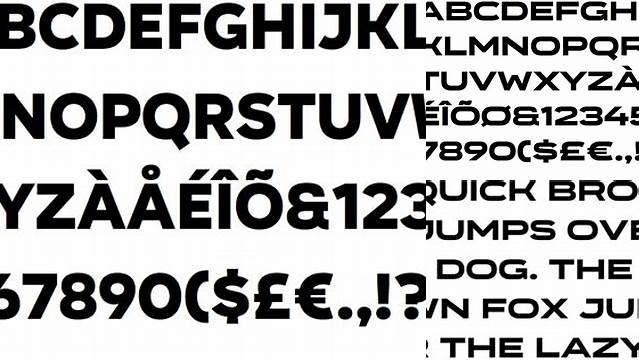
Organetto Ultra Bold Font: A Deep Dive
Fontspring Demo: Organetto Ultra Bold – A Deep Dive
Hey guys, let's talk about the Fontspring demo for Organetto Ultra Bold. This is one of those fonts that just jumps out at you, right? It's got that in-your-face boldness that demands attention. In this article, we're going to dive deep into what makes this font tick, why you might want to use it, and where it shines the brightest. We'll explore its personality, its strengths, and even a few potential drawbacks. Get ready to get acquainted with a typeface that's designed to make a statement. So, if you're ready to boldly go where few fonts have gone before, let's get started!
Organetto Ultra Bold isn't shy; it's the life of the party, the headline hogger. Its substantial weight and commanding presence make it a top choice for anything that needs to shout, not whisper. Think about it: posters, headlines, logos – places where you need instant recognition and impact. We're talking about a font that can turn heads from across the room. It has a certain je ne sais quoi that makes it unique. It's the font equivalent of wearing a bright red suit to a business meeting. While it might not be everyone's cup of tea, it's definitely memorable.
When you're thinking about using Organetto Ultra Bold, you're also thinking about the statement you want to make. Are you aiming for something modern, edgy, or perhaps a touch retro? This font can help you achieve those goals. Its clean lines and exaggerated weight offer a contemporary feel, while its bold nature hints at a retro aesthetic. It’s a versatile font, capable of adapting to different design needs, but only if used correctly. Imagine this font on a concert poster, a movie title, or even a high-end fashion brand's logo.
And it doesn't end there, Organetto Ultra Bold is not just about its aesthetics. It is also about its functionality, which is often overlooked. Despite its extreme weight, it is surprisingly legible, especially at larger sizes. The design's consideration for readability is a crucial element of a good font. You wouldn't want a stunning font that's impossible to read, right? The Fontspring demo allows you to test this out, giving you a feel for how the font performs in various contexts. So, if you're a designer, a marketer, or just someone who loves fonts, this is a must-try. Let's get into it!
Understanding Organetto Ultra Bold's Character
Alright, let's delve into the very soul of Organetto Ultra Bold. The key to properly using any font, or any design element for that matter, is to understand its inherent character. It is the foundation upon which all design decisions are made. This isn’t just about its visual appearance; it’s also about the feelings it evokes and the message it conveys. This bold, unapologetic font is all about making a statement, commanding attention, and doing it with style. You can consider it as a visual megaphone. It’s designed to amplify your message, ensuring it’s heard loud and clear. So, if your goal is to be subtle or understated, this probably isn’t the font for you.
But if you want to be noticed, if you want to leave an unforgettable impression, Organetto Ultra Bold is your best friend. Imagine its impact on a website banner, a magazine cover, or an advertisement. It's the difference between blending in and standing out. The font's exaggerated weight and clean lines provide a modern aesthetic, whilst giving a nod to retro design. Its unique blend of the two creates an interesting visual dynamic. It will not only grab the viewer's attention, but it will also retain it. It is a font that knows what it wants and isn’t afraid to go for it. Its very nature is confident.
When choosing a font, you need to consider what the font represents, the message it sends, and how it will be received. It is important to match the font to your brand or design’s overall aesthetic. If the font does not suit your brand, then it will be doing more harm than good. It's about understanding the core of your project. Consider your target audience. Who are you trying to reach? Organetto Ultra Bold is fantastic at reaching the masses. It’s not just about visuals; it’s about emotional resonance. The font's strength lies in its ability to connect with viewers on a deeper level. It stirs feelings and drives engagement. It’s perfect for brands that want to convey a sense of boldness, innovation, or a dash of rebellious spirit. This is a font that knows its value. It's ready to take center stage in the design world.
Strengths and Weaknesses of Organetto Ultra Bold
Let's be real, guys, no font is perfect, and that's part of what makes the design world so interesting. While Organetto Ultra Bold has a lot going for it, it’s crucial to understand its strengths and weaknesses before you start using it. Knowing the pros and cons will help you maximize its impact. We will cover its strong points and its potential pitfalls. First up, the strengths. The sheer boldness of Organetto is, without a doubt, its greatest strength. It's a powerhouse for grabbing attention. It’s ideal for headlines, display text, and logos where you need to make a bold statement. Its clean, modern design makes it versatile for various projects.
It's not just about being big; it's about being clear. Despite its heavy weight, it manages to maintain legibility. The Fontspring demo really lets you test this out to see how it will perform in different sizes and contexts. Its bold aesthetic and unique personality can help set your brand apart. But, now, let's talk about the flip side. As much as we all love it, Organetto Ultra Bold isn't the right choice for every project. It’s designed to be the star, and it isn't very good in supporting roles. Its extreme weight may not be suitable for long-form text or body copy. It can become visually overwhelming, making it hard for readers to focus.
And because it’s so distinctive, overuse can lead to your designs looking cluttered and busy. This is not a font you should sprinkle everywhere; it works best in moderation. Consider its limitations when it comes to smaller sizes. It might lose some of its impact, or legibility. Keep these points in mind. The Fontspring demo provides a great opportunity to play around with this font. The more you experiment with it, the better you will understand how to use it. The goal is to make it work for you and to fully understand its capabilities.
Organetto Ultra Bold isn't just a font; it’s a statement. It’s designed to be seen, heard, and remembered. If you're looking to make a bold impact, this might just be the font for you. And whether you're a seasoned designer or just starting out, understanding the nuances of this typeface can elevate your design game. It's all about balance, strategic use, and understanding its potential. So, go forth and create something amazing! Now go out there and design something beautiful. That's the beauty of the design world. Have fun!